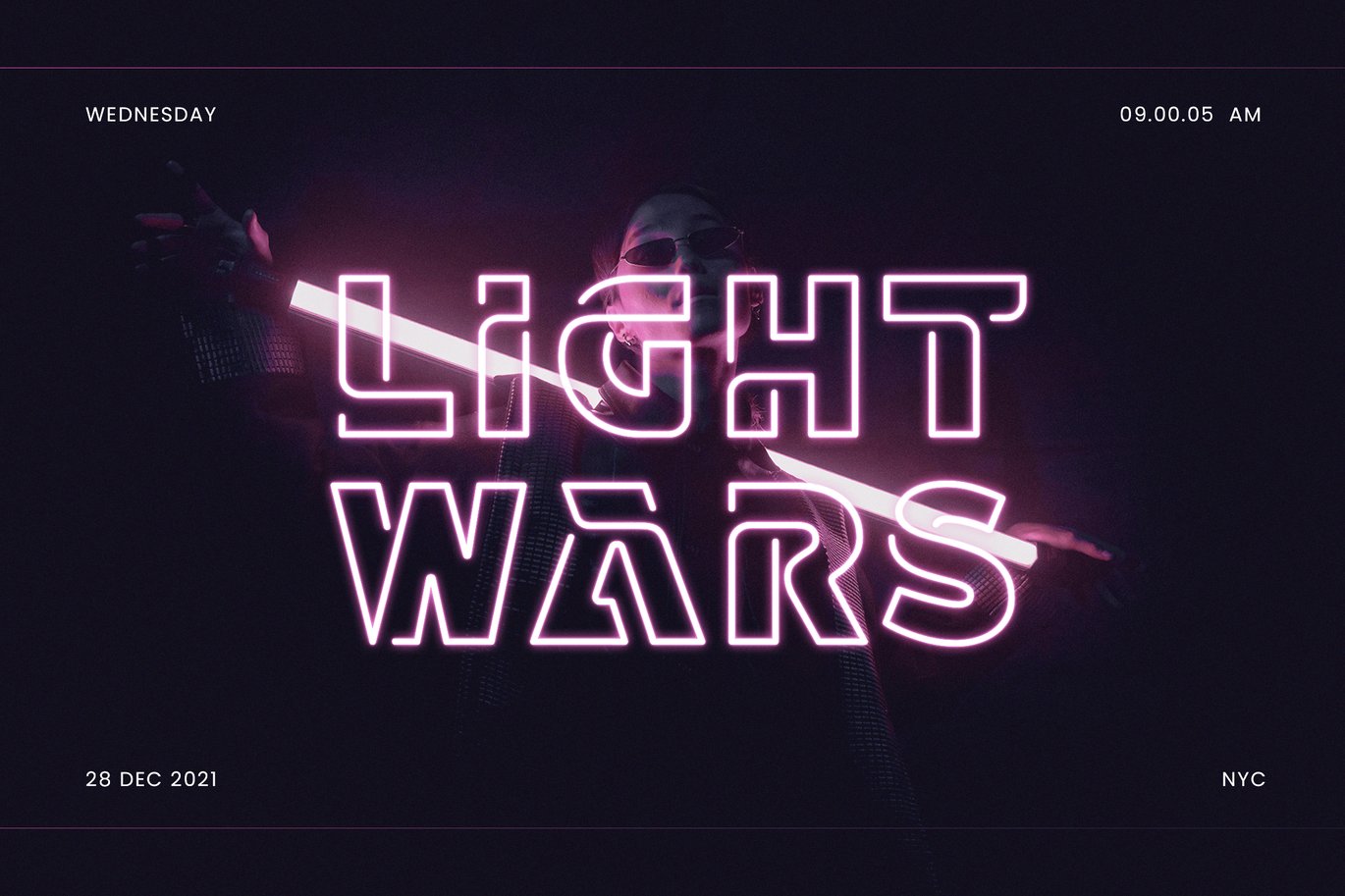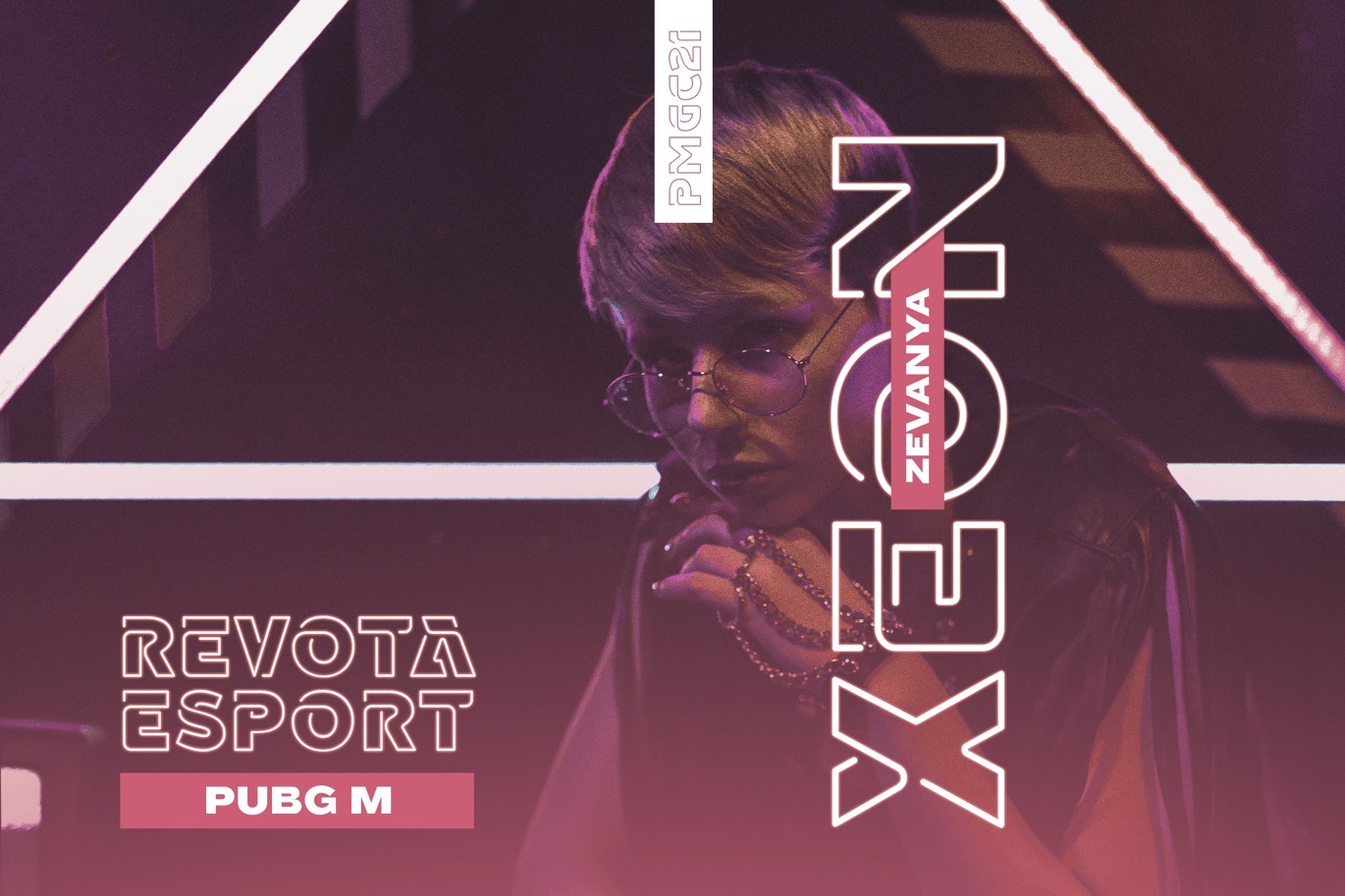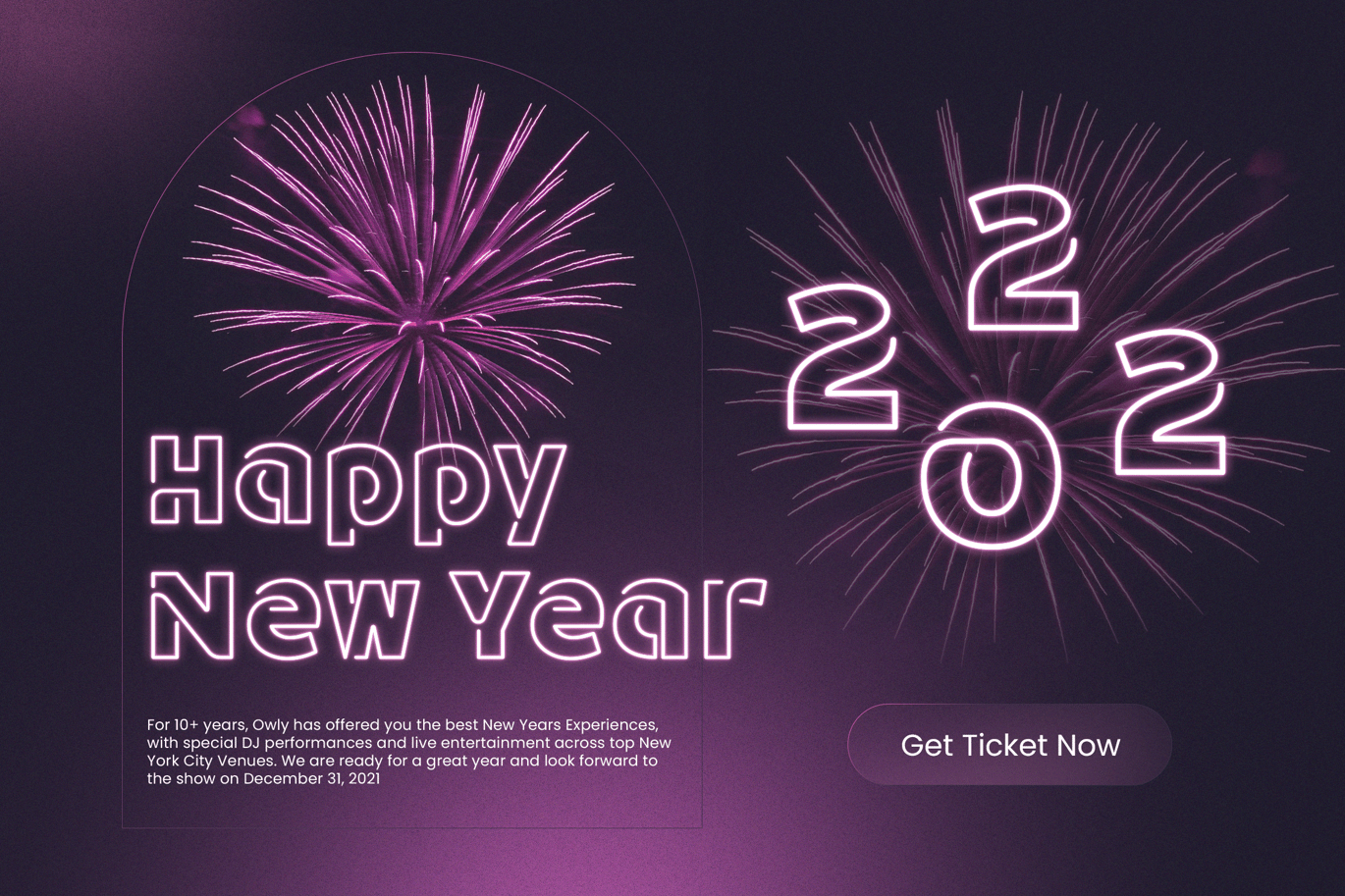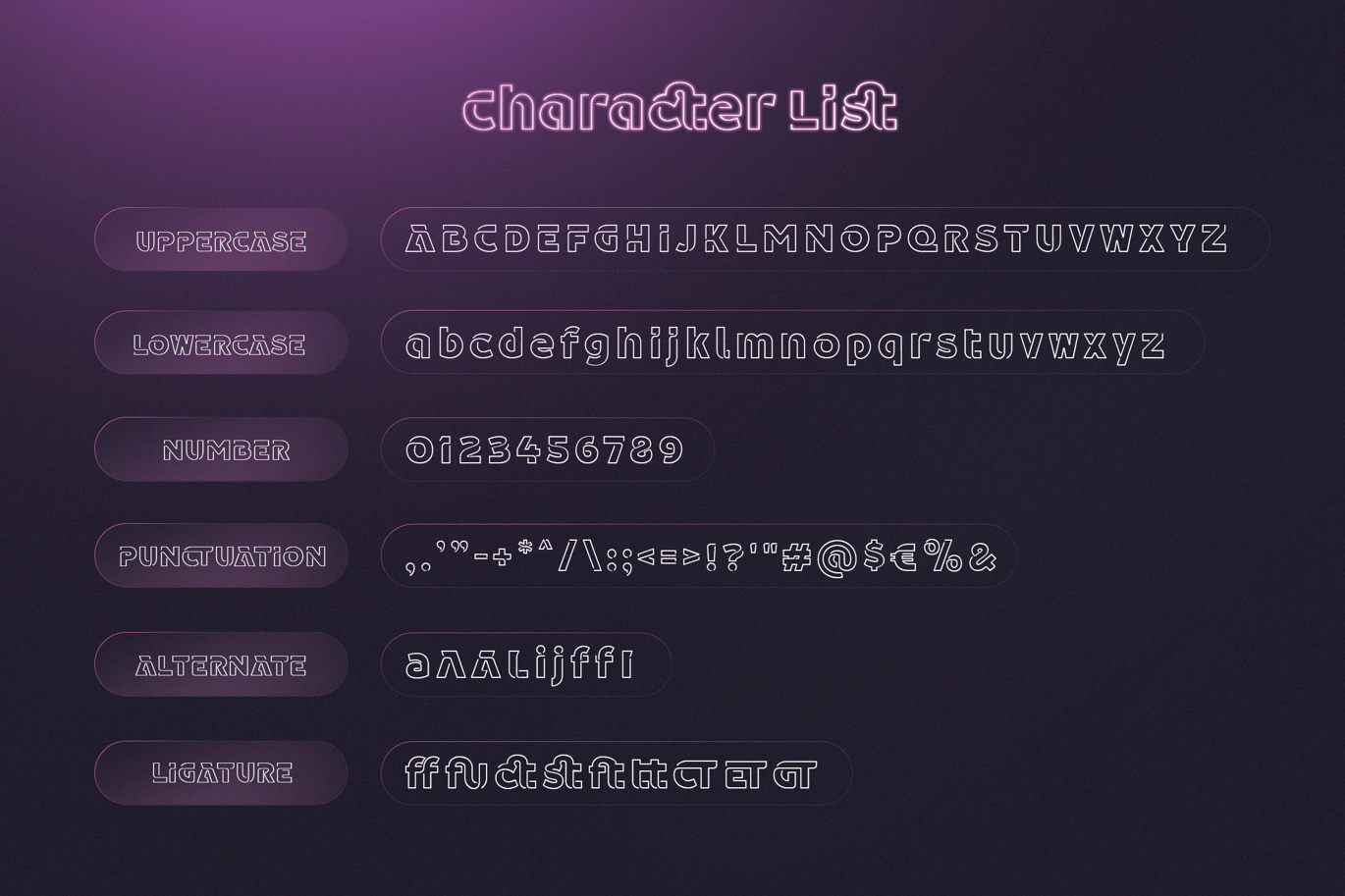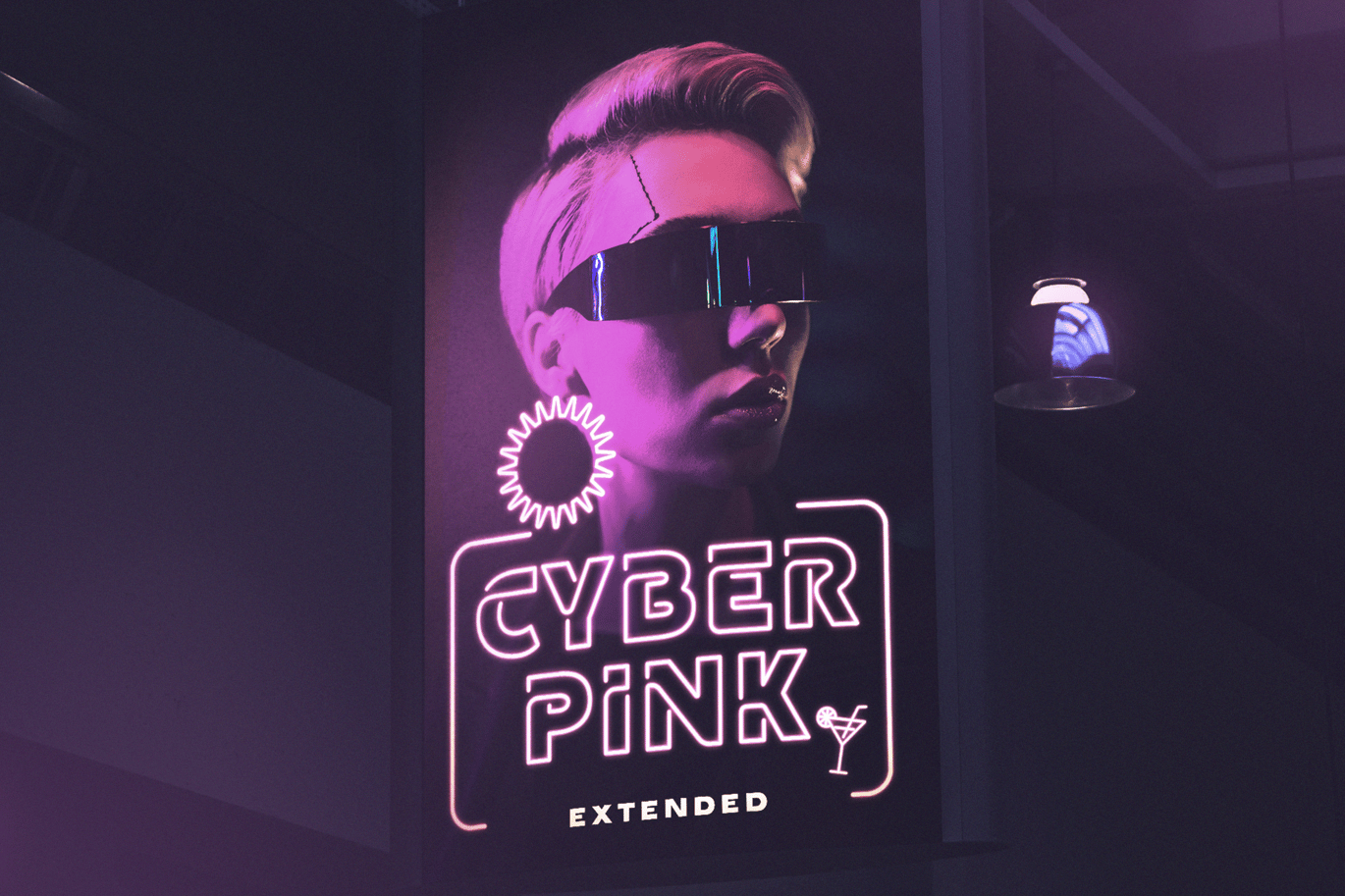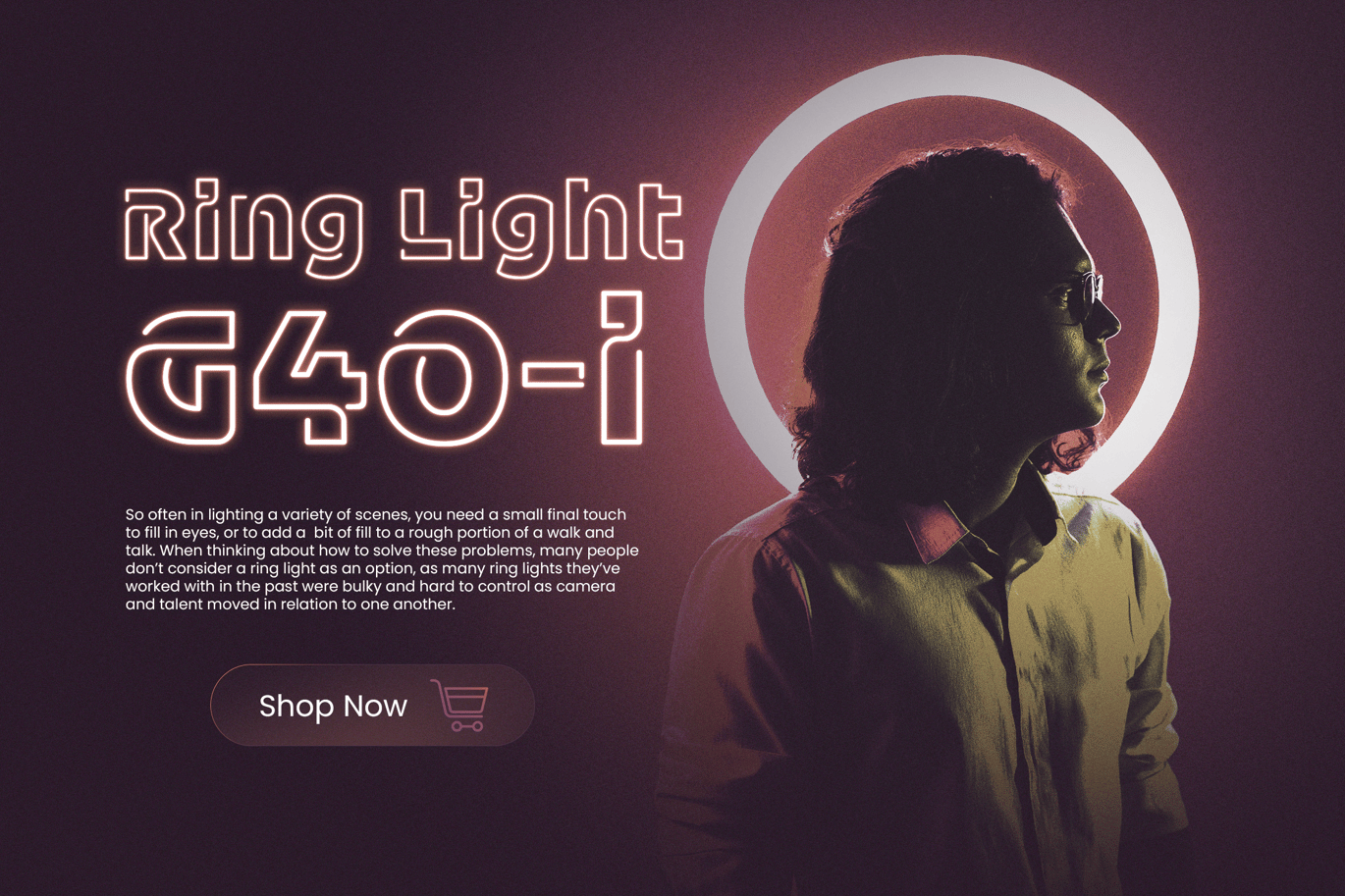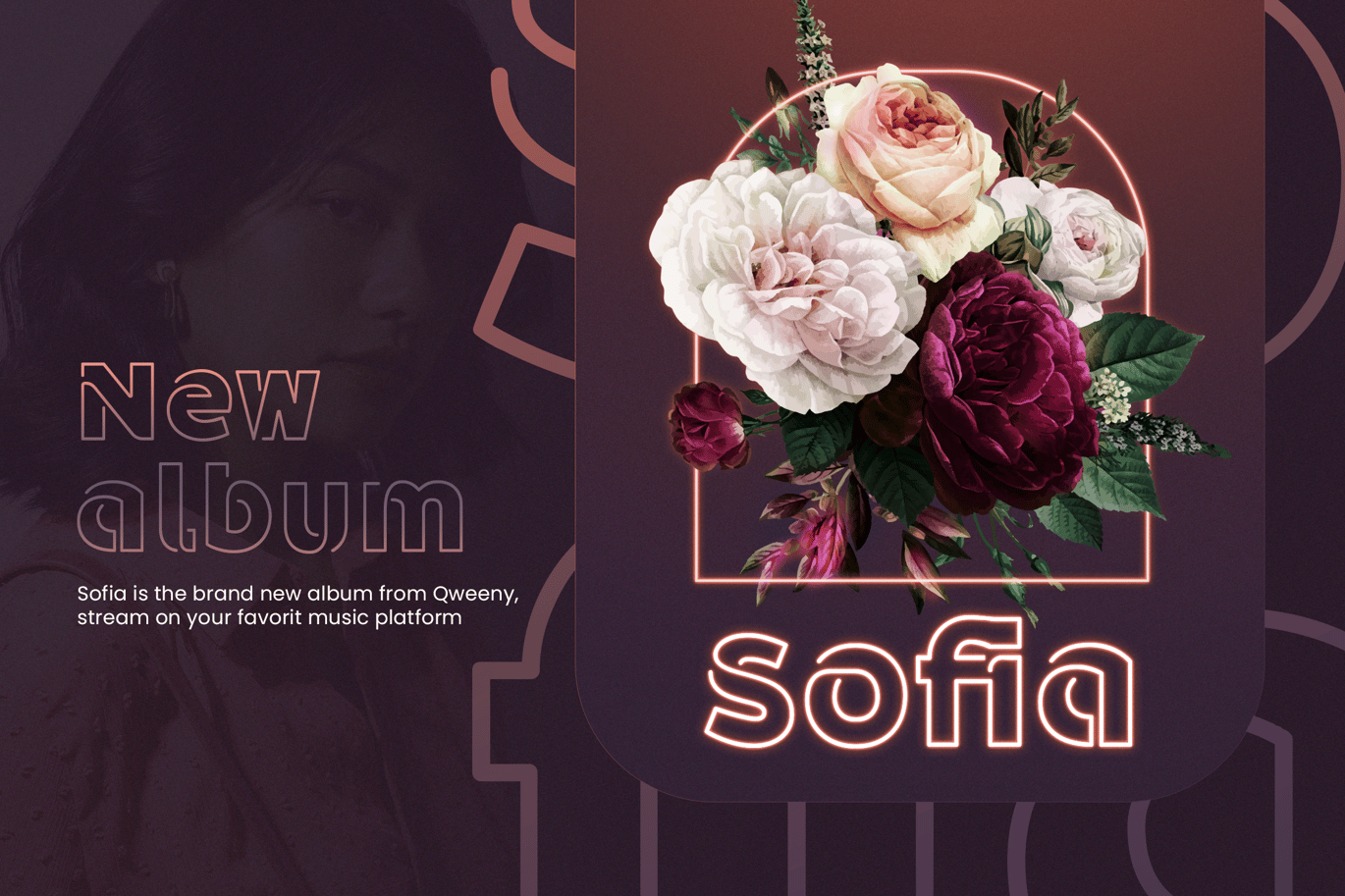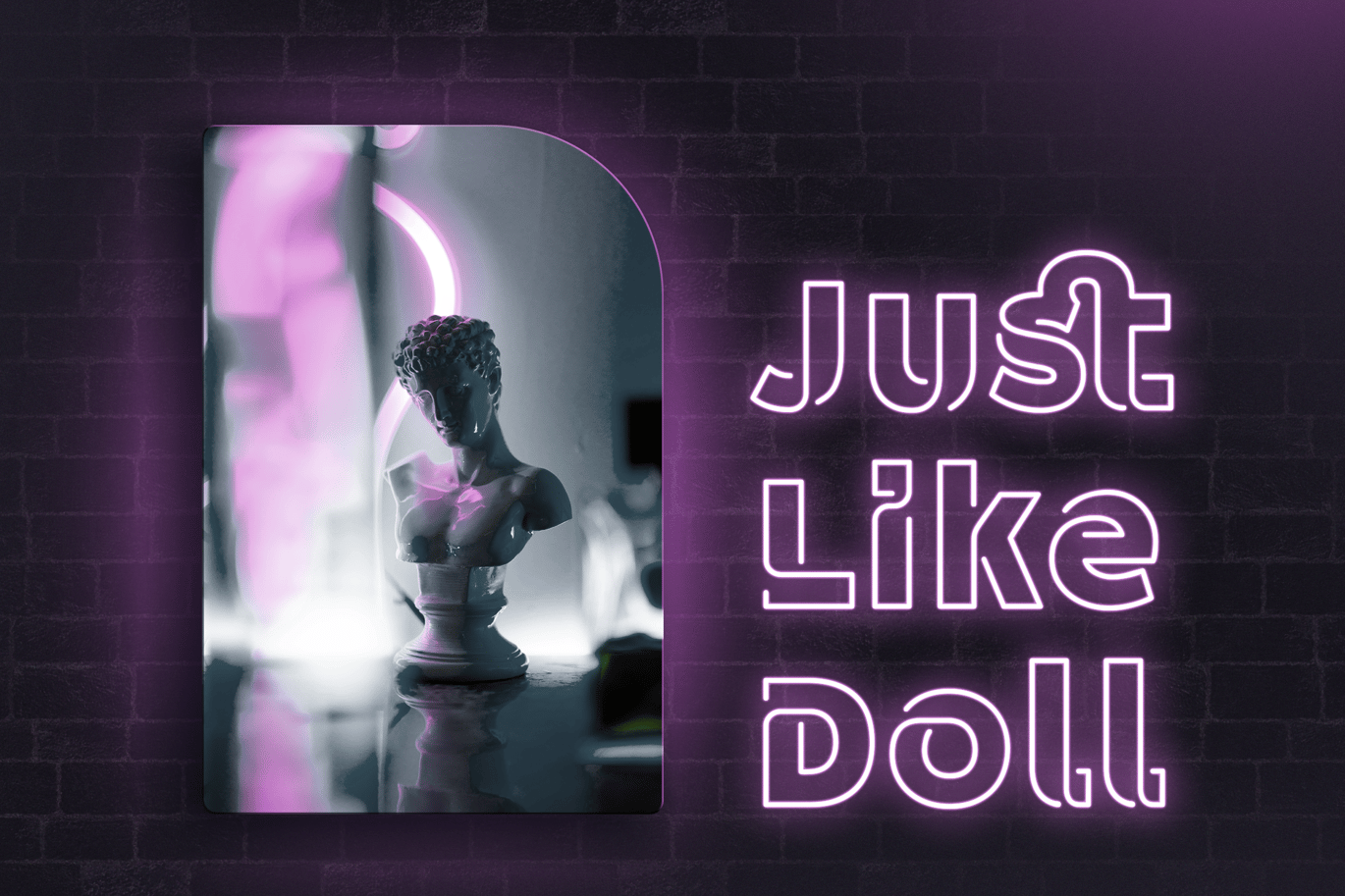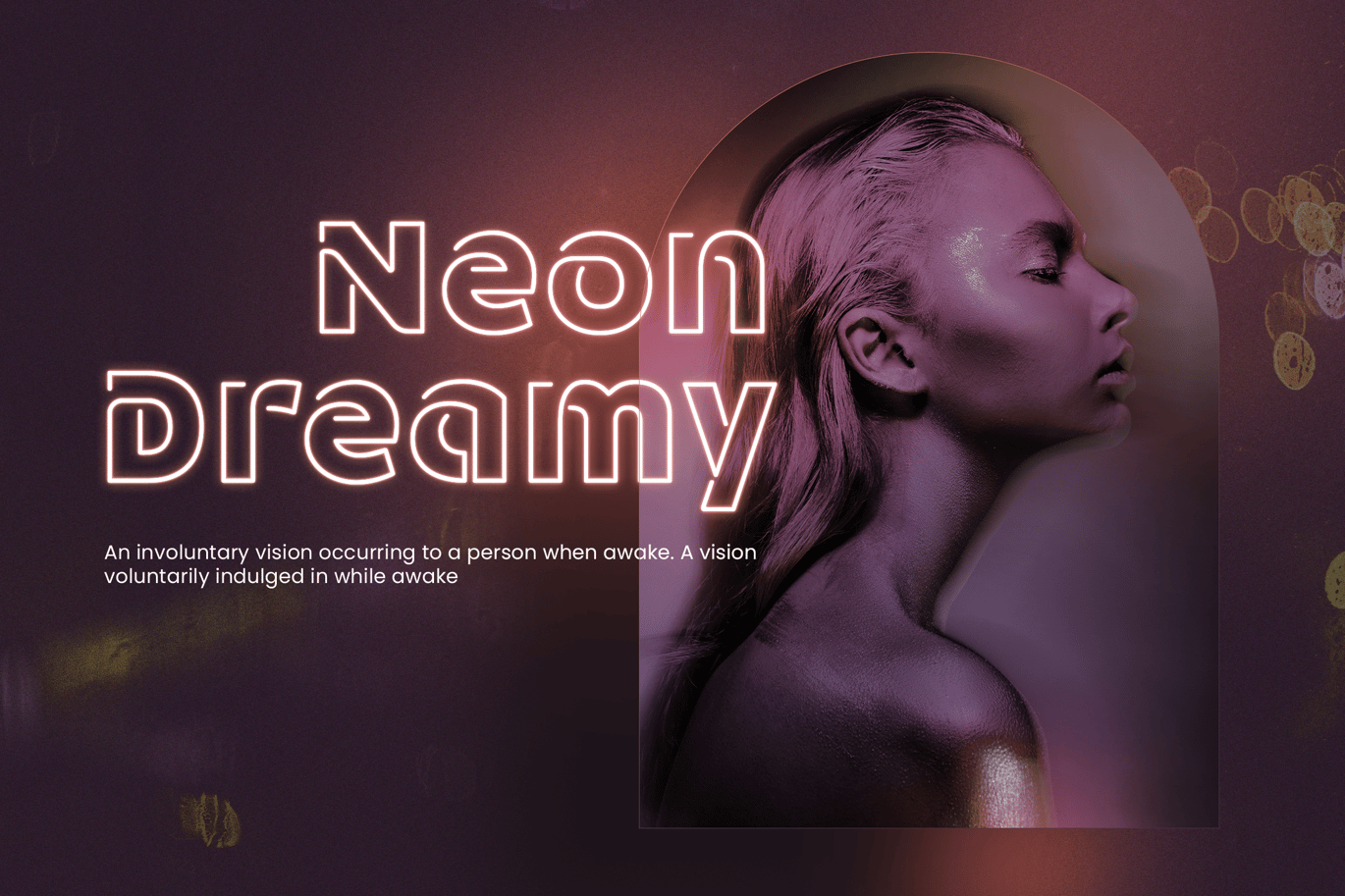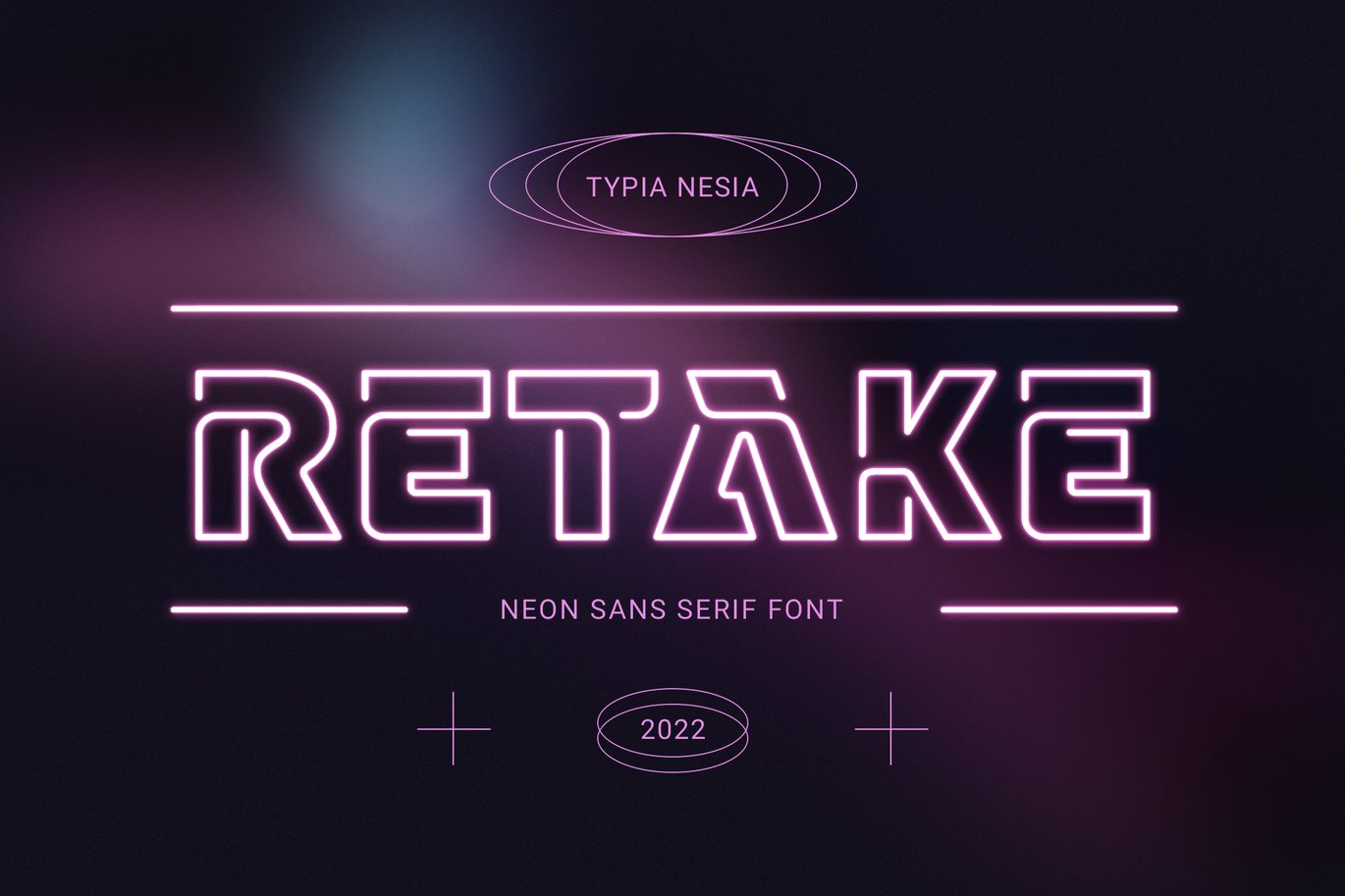
Retake – Outline Neon Font – Techno Scifi Sans
Retake – Outline Retro Cafe Neon Sign Font – Techno Scifi Display Sans
Retake Neon Display Font is perfect for your up coming projects. Such as logo branding, editorial design, stationery design, sport design, 80s retro design, game industry, music poster, blog design, modern advertising design, card invitation, art quote, home decor, book/cover title, special events and any more.